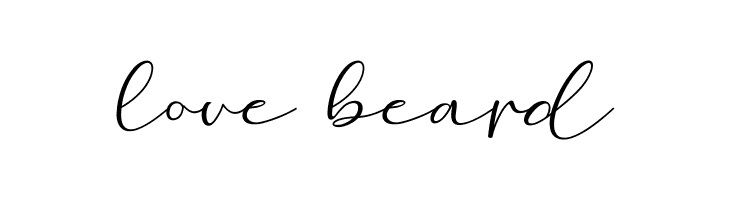
A fluid and elegant script font with smooth, flowing lines and graceful curves.
A graceful script font with fluid, connected strokes and elegant curves.